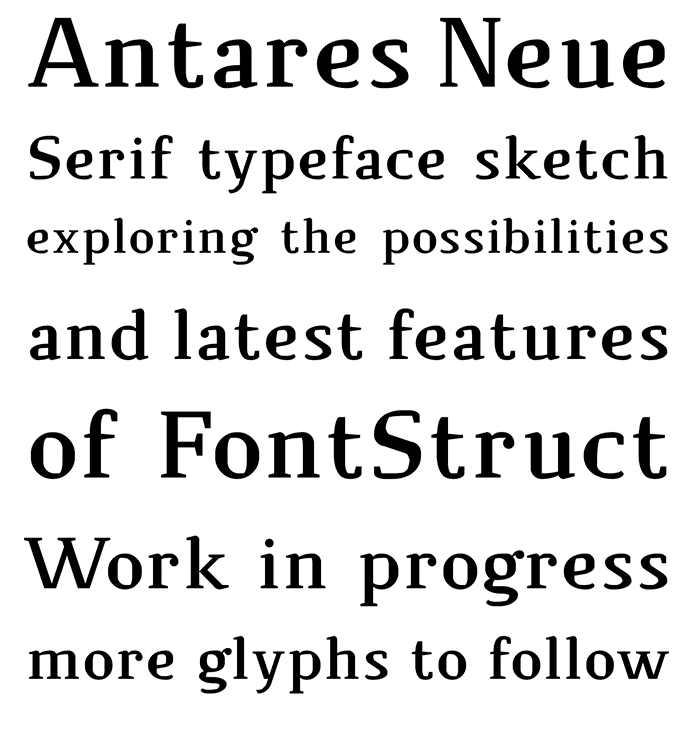
• This would probably have been a Serif Comp entry but I hadn't got the time to work on it in the last months. I'm releasing a preview now. Feedback welcome!
I cannot comment on this kind of -nice- fontstructions, but let me say I enjoyed your sample (a very educative one to me, though a tad scary in terms of time of development(?)).
W.
O.
W.